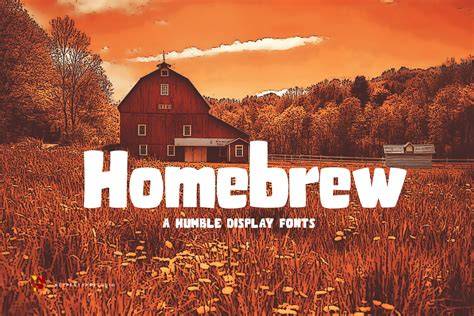
What Is Homebrew Fonts?
Homebrew fonts are typefaces that are made by individuals or small design firms, rather than large type foundries. This type of font is becoming increasingly popular, as it allows the user to create their own custom typeface designs, rather than relying on pre-made fonts. Homebrew fonts are often designed to be used primarily for digital projects, such as web design, or for print projects, such as magazines or books. Homebrew fonts can also be used for logos or other branding materials.
The Benefits of Homebrew Fonts
One of the biggest advantages of homebrew fonts is that they can be customized to suit your own individual needs. This means that you can create a unique and eye-catching font that perfectly suits your project, instead of relying on a generic pre-made font. Homebrew fonts also allow you to save money, as they are usually cheaper than purchasing a font from a foundry. In addition, homebrew fonts can often be used for a variety of projects, allowing you to get the most out of your investment.
Choosing the Right Homebrew Font
When choosing a homebrew font, it's important to consider a few factors. First, you'll want to make sure that the font you choose fits the style of your project. If you're creating a logo, for example, you'll want to pick a font that has a bold and modern look. Additionally, you'll want to consider the readability of the font, as well as the legibility of the font in different sizes. Lastly, you'll want to make sure that the font you select is compatible with the software you're using.
Creating Your Own Homebrew Fonts
If you're feeling ambitious, you can also create your own homebrew font. This requires a bit of technical knowledge and time, but it can be a great way to create a unique font for your project. There are numerous tutorials online that can help you get started. Additionally, there are a variety of font-creation software programs available for purchase, such as FontForge and Glyphs. With the right knowledge and tools, you can create your own homebrew font in no time.